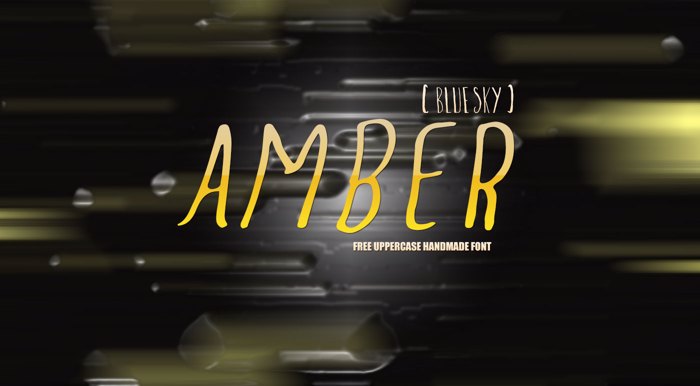
Amber Blue Sky Font
Handmade Style
Amber (Blue Sky) handmade font is good for grunge typography and these are one of the most useful fonts these days. They are multipurpose and people use it to showcase their products. We hope you will like this one.